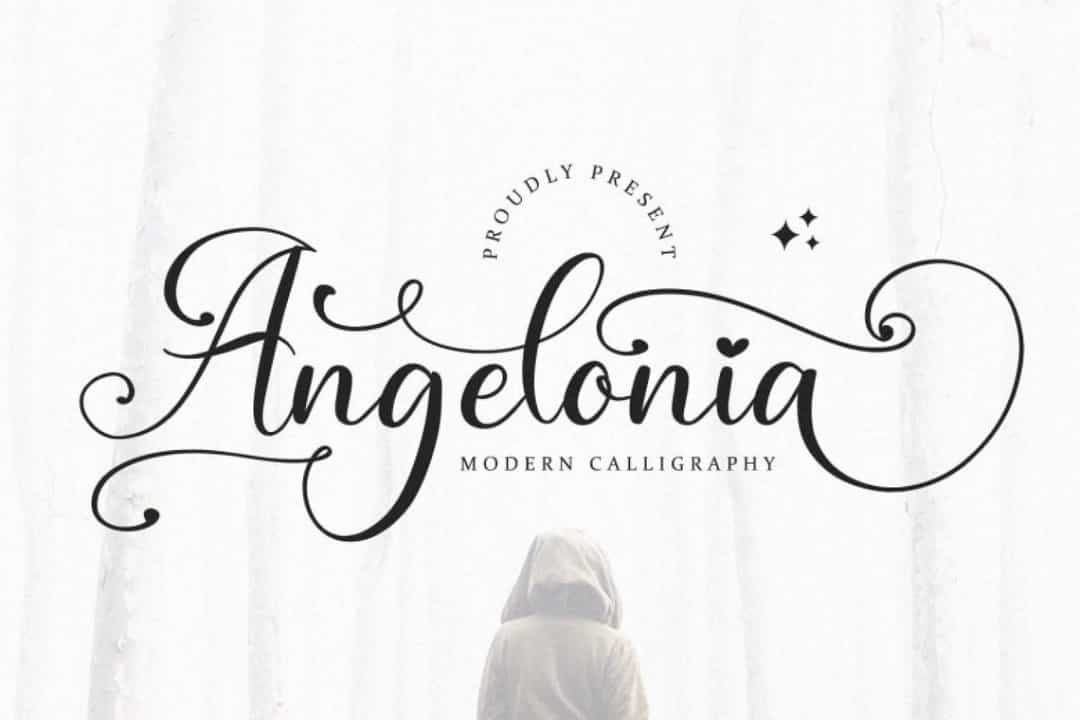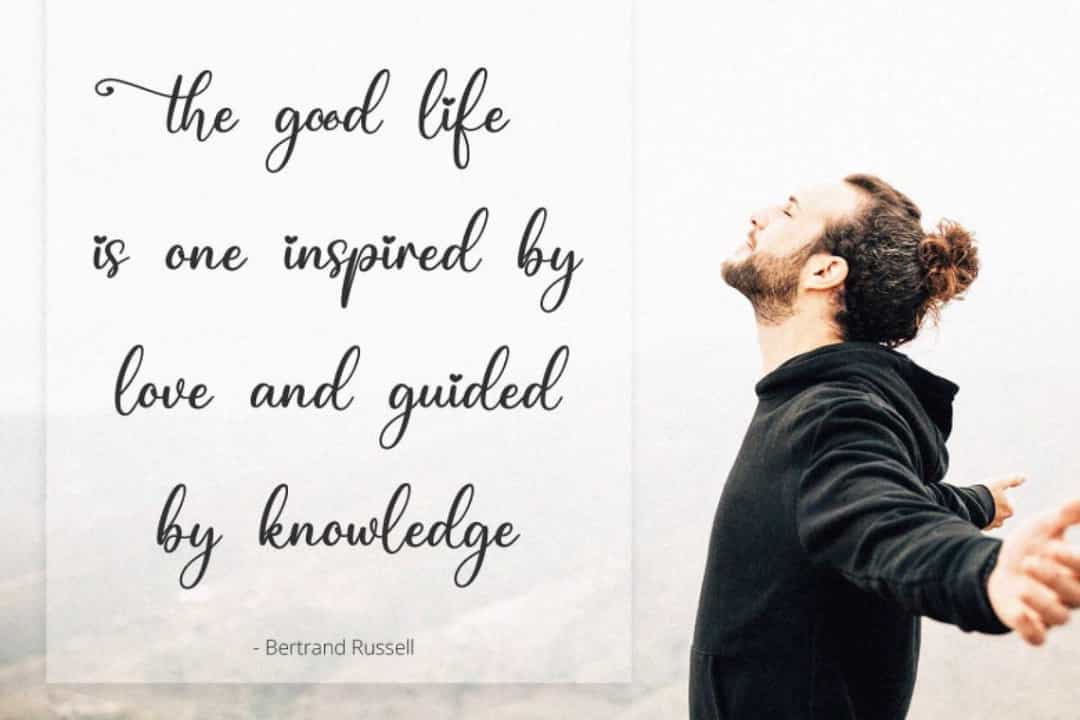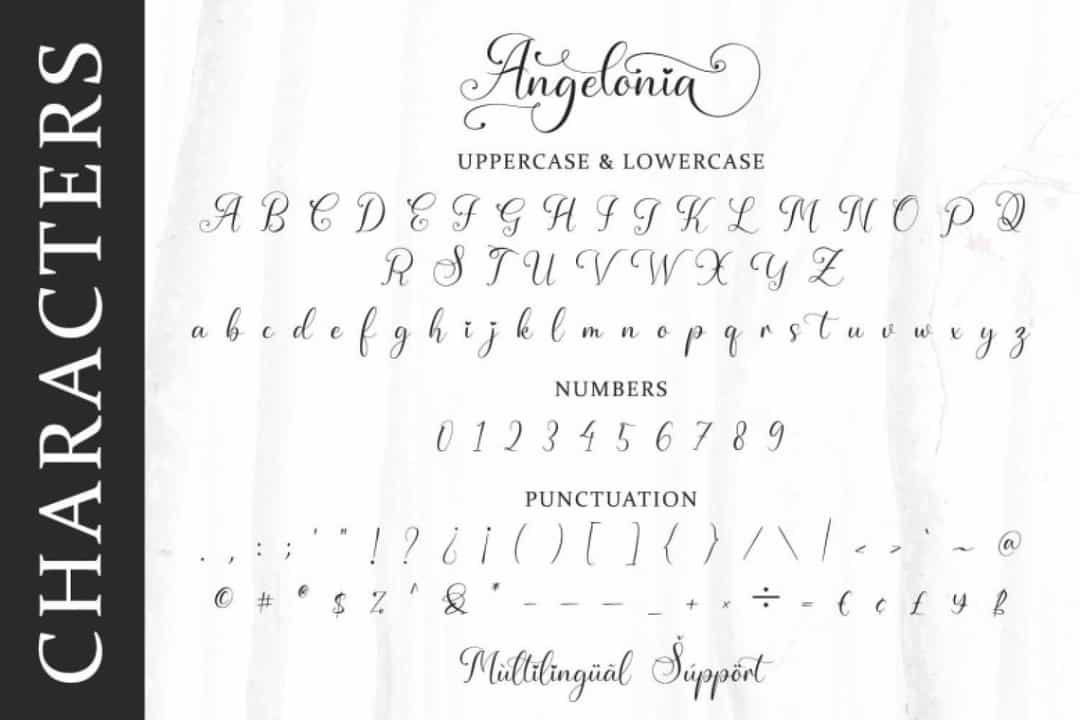
Angelonia is a delicately lettered and elegant script typeface perfect for calligraphy. You will love its exquisite design as you use Angelonia to craft elegant wedding invitations, stationary art projects and Instagram posts! PUA encoded version allows easy access to all characters and swashes!